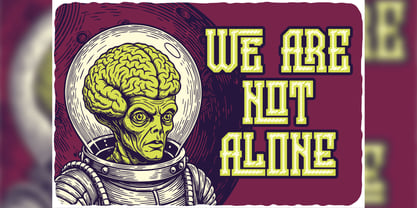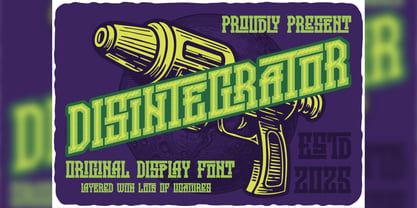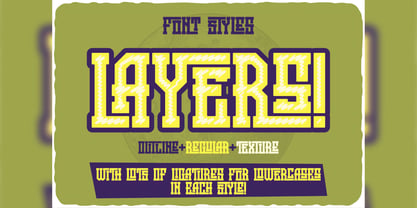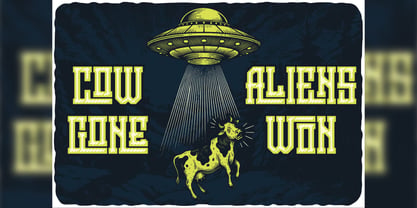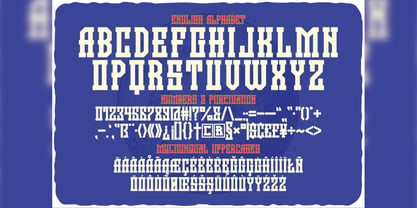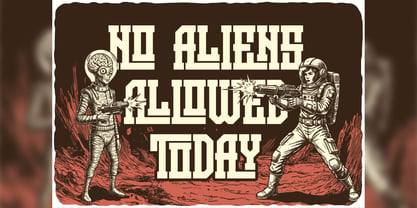
Disintegrator
by Vozzy
The Disintegrator Font Family was designed by Oleg Voznyy and published by Vozzy. Disintegrator contains 3 styles and family package options. More about this family
Introducing the striking font family "Disintegrator," designed to make a bold statement in headlines and accent inscriptions. This unique typeface is perfect for capturing attention and enhancing your creative projects. It features an extensive range of additional characters, punctuation marks, and multilingual options, ensuring versatility across various languages. With a wealth of standard ligatures, this font supports advanced OpenType features, making it a fantastic choice for modern design applications. Elevate your branding, web, and editorial designs with the captivating style of Disintegrator, and watch it transform your visuals into stunning works of art!
Designers: Oleg Voznyy
Foundry: Vozzy